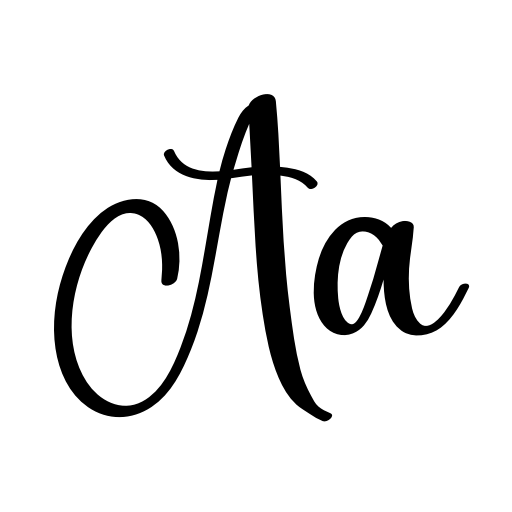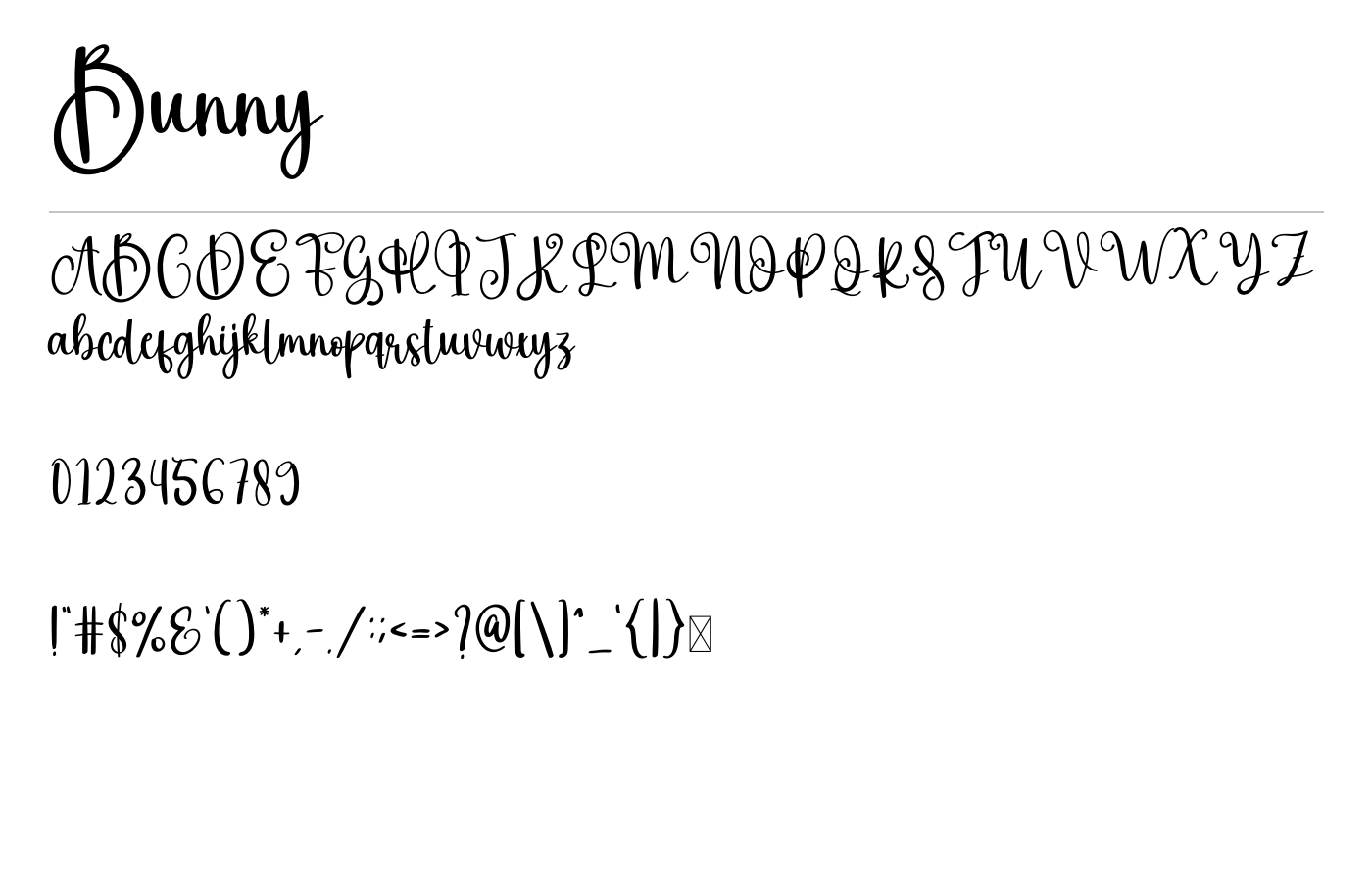
Bunny Font is a playful and elegant script font featuring delicate, flowing strokes with a hand-drawn feel. Its combination of ornate uppercase letters and smooth, legible lowercase characters makes it ideal for invitations, branding, and any design requiring a charming, whimsical touch. This font works especially well in creative and casual contexts where personality and friendliness are important.
Bunny Font